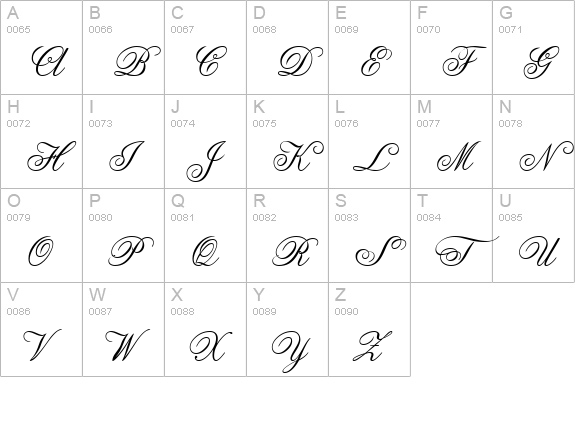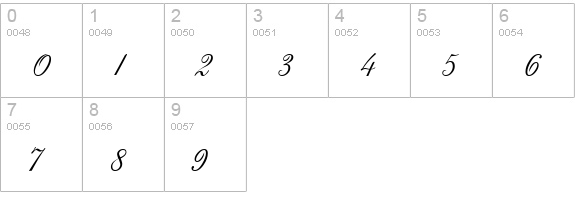
Anglia Script Concise font is a beautifully crafted typeface that exudes elegance and sophistication. Its delicate and flowing lines make it perfect for adding a touch of glamour to any design project. The cursive style of this font gives it a timeless appeal, making it suitable for a wide range of applications, from wedding invitations to branding materials. What makes Anglia Script Concise font even more appealing is that it is available for free download at FontsMarket.com. This means that you can easily access this stunning font and use it in your projects without any cost. So why wait? Enhance your designs with the exquisite beauty of Anglia Script Concise font today!